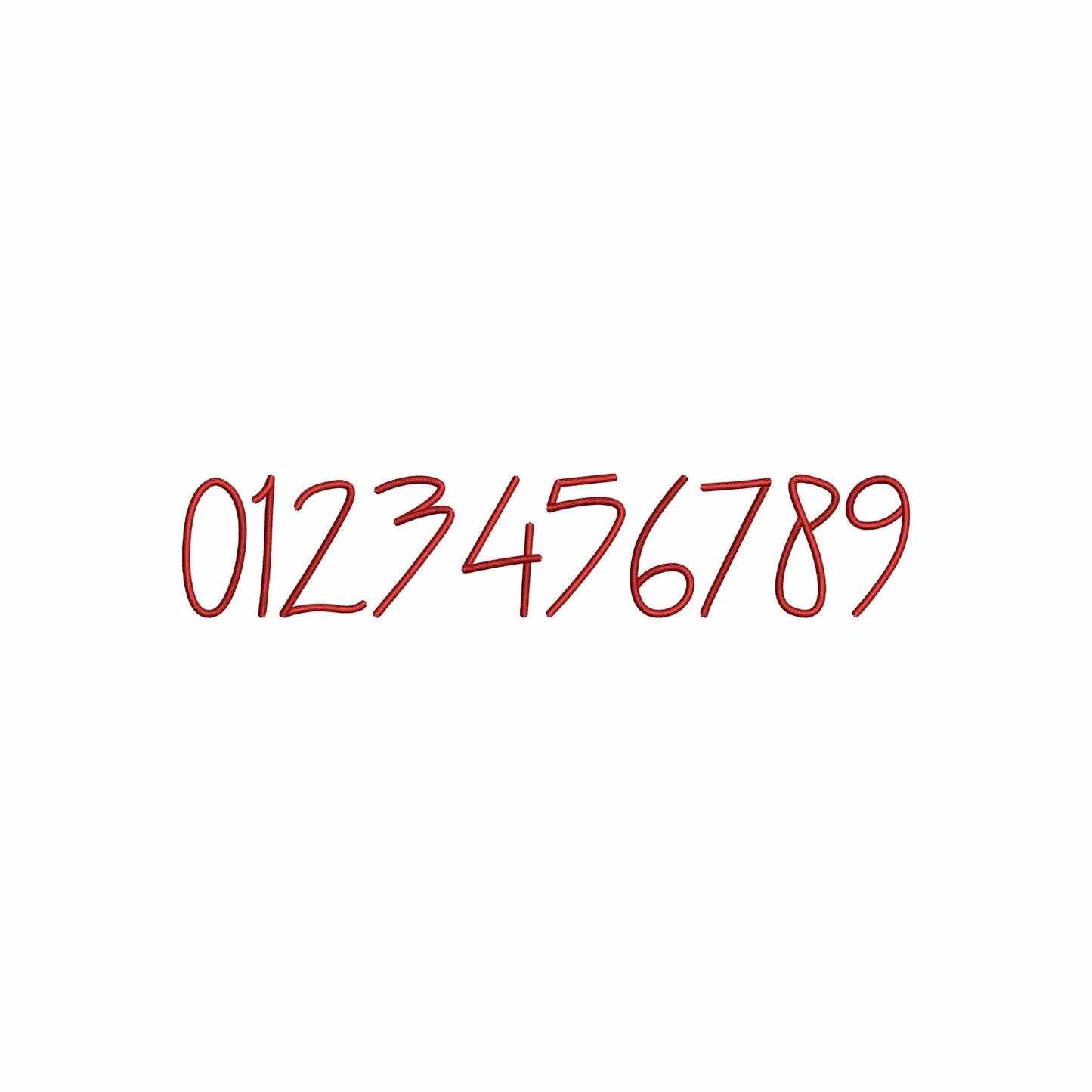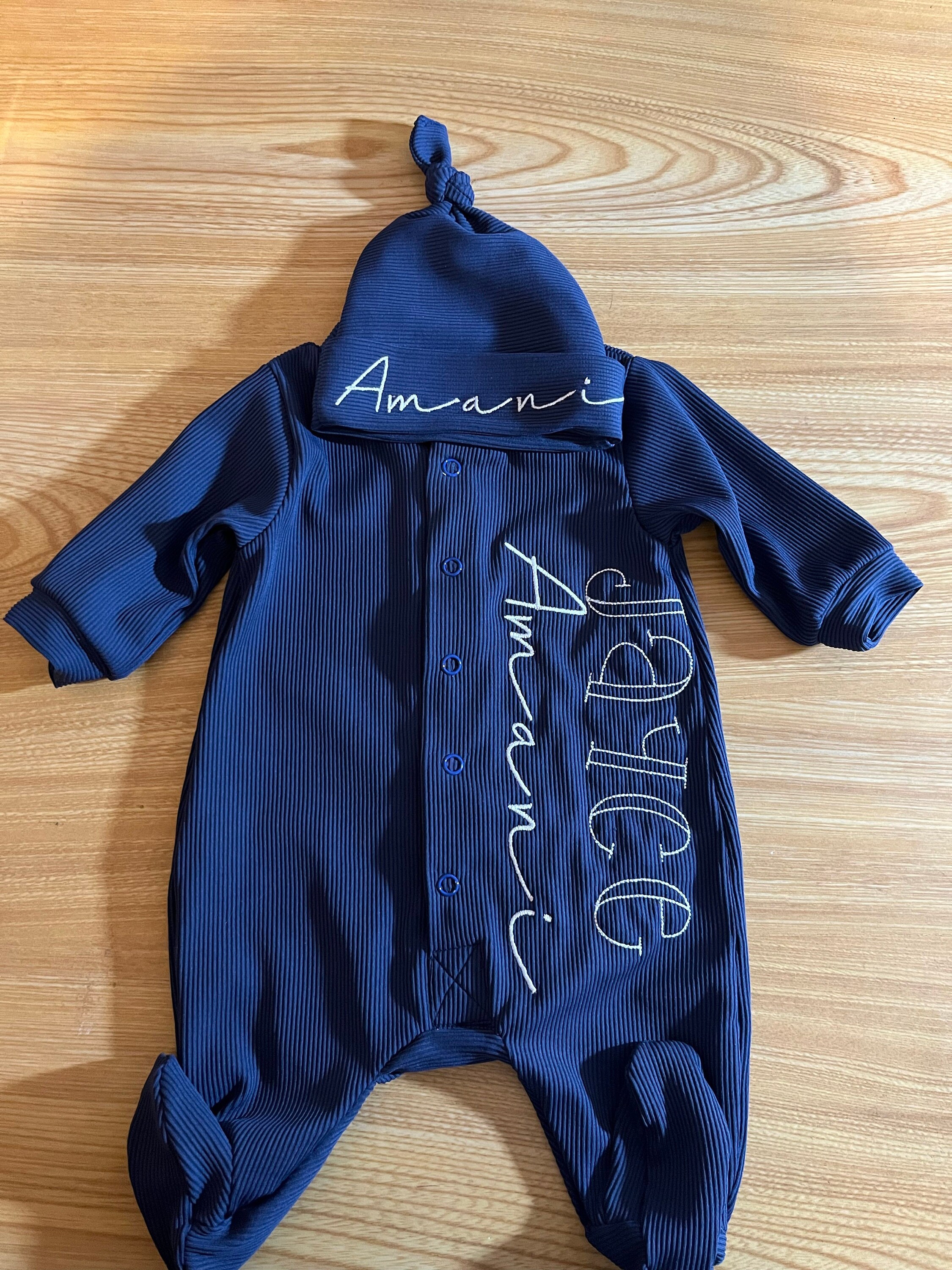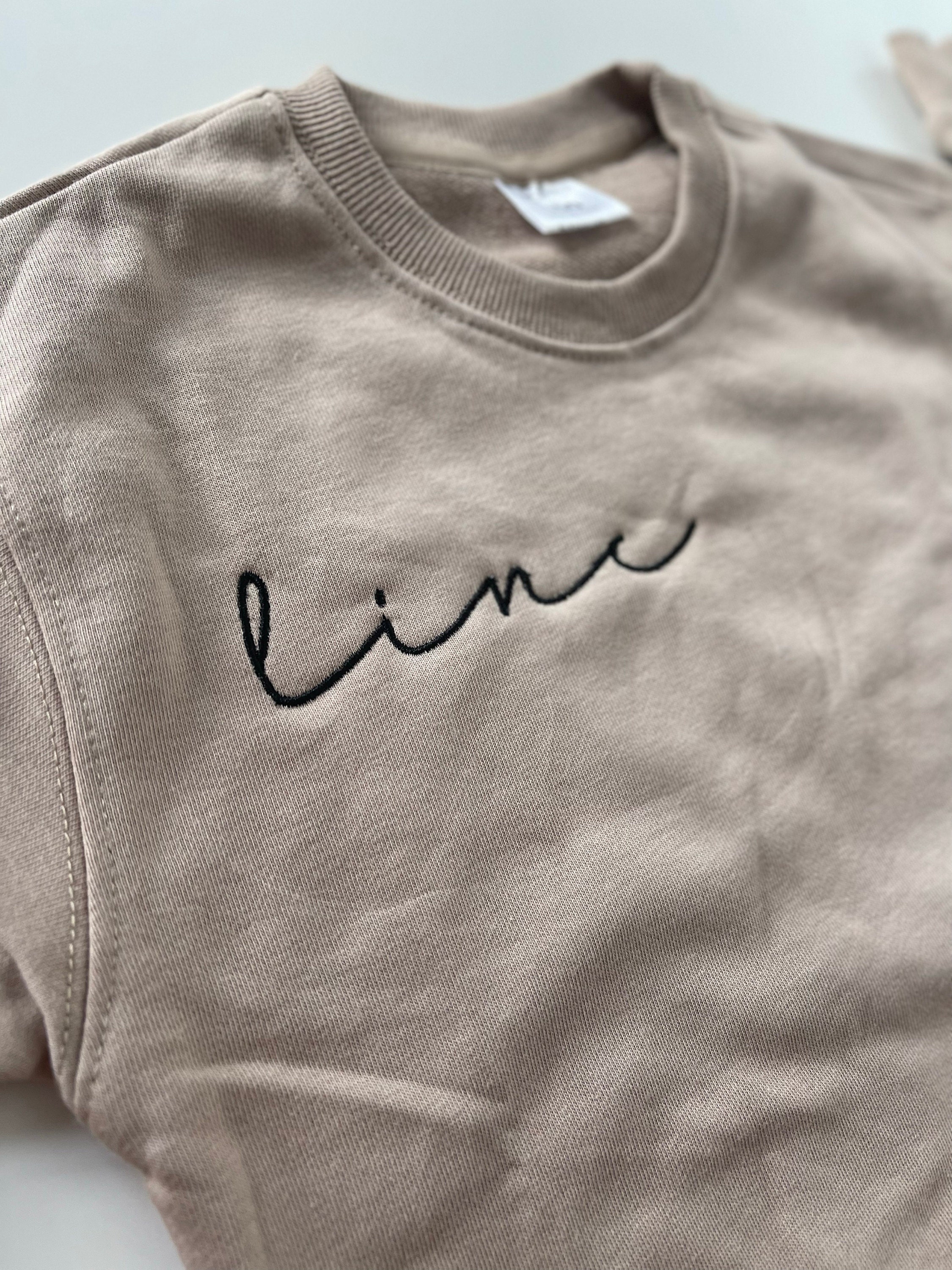
Dalla - Embroidery font
This machine embroidery font works well for monograms, towels, keepsakes, shirts, gifts, and feminine personalized embroidery.
A strong choice for makers who want script lettering for elegant name projects and polished custom details.